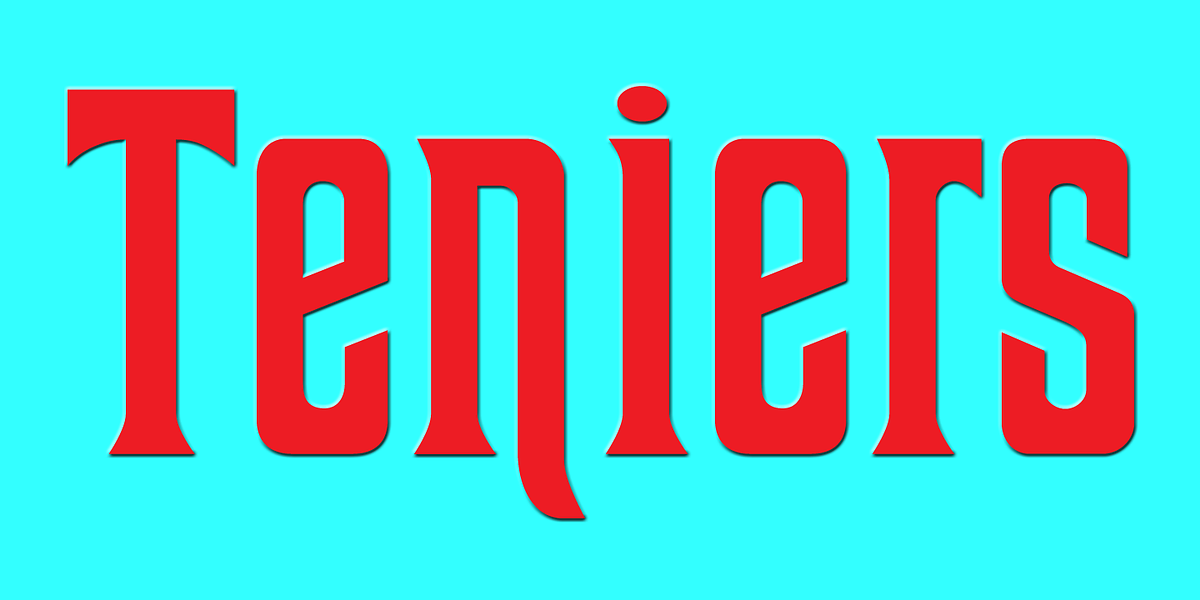
Teniers
This sans serif font is characterized by its bold weight, geometric shapes, and distinctive flared terminals. The very tall x-height contributes to a unique and eye-catching appearance. Its design features make it well-suited for headlines and titling.